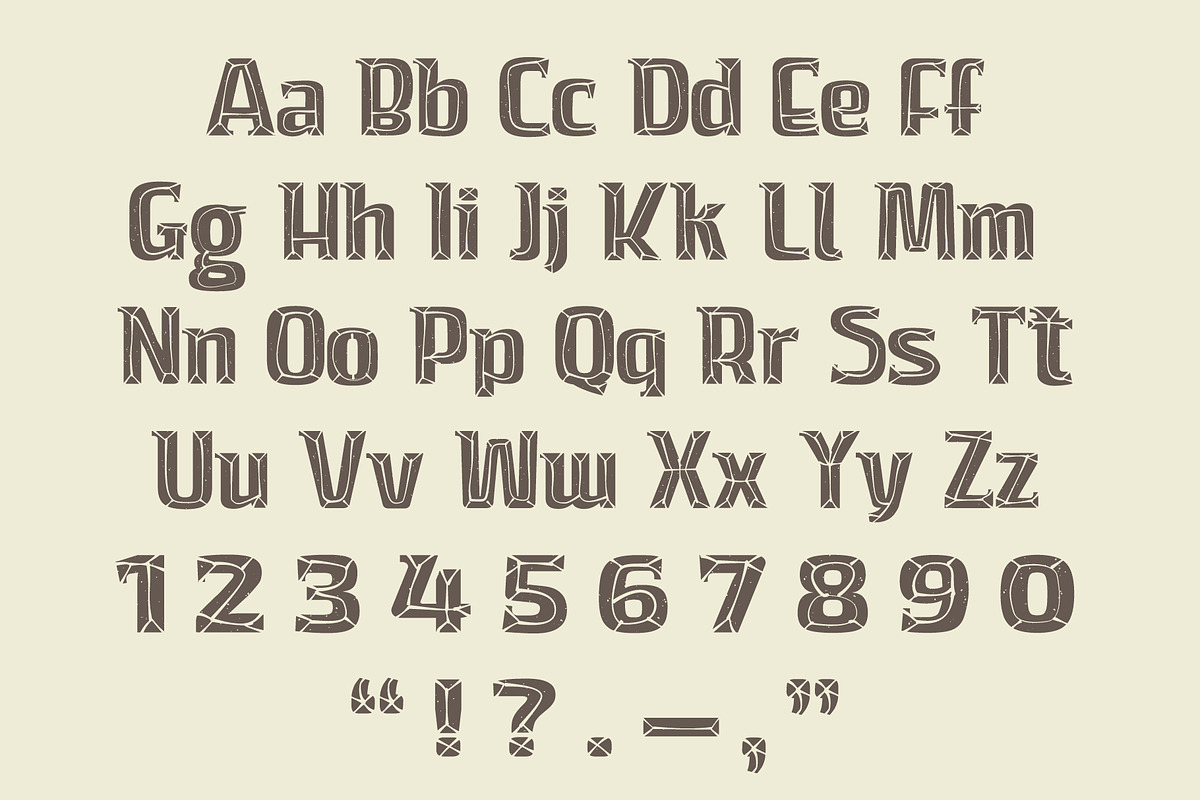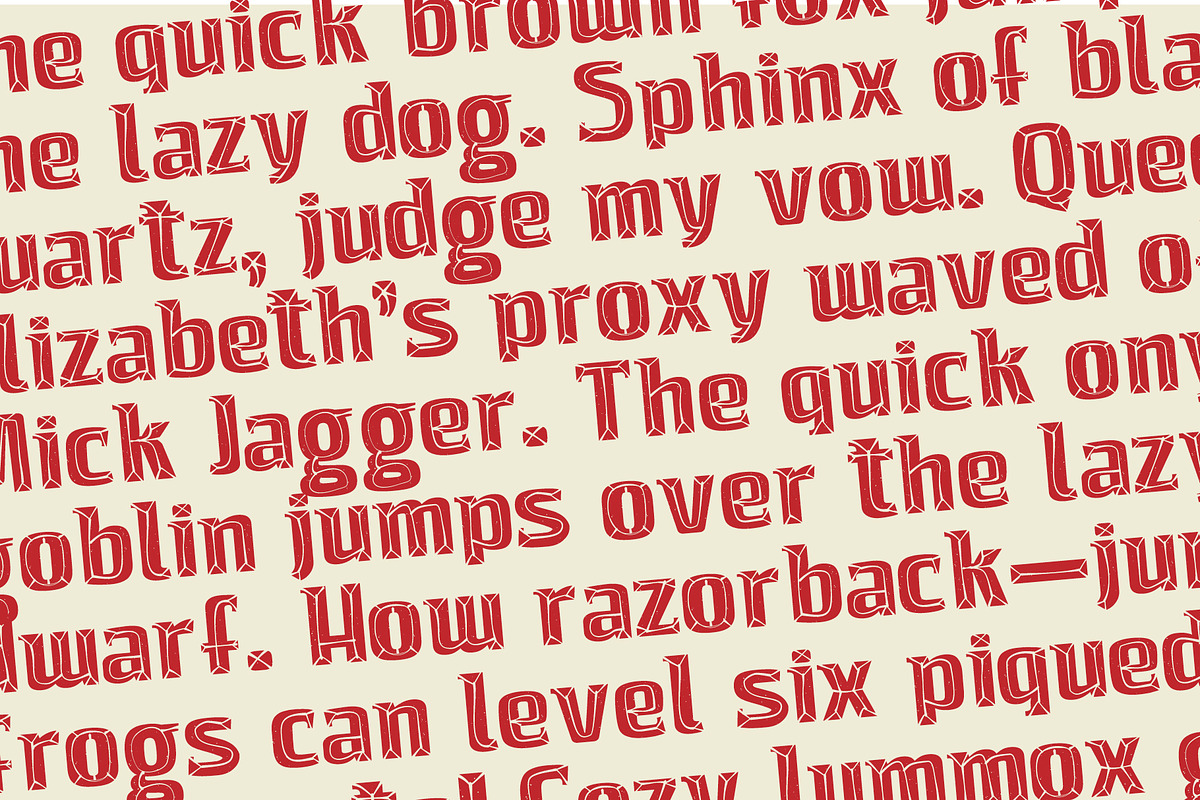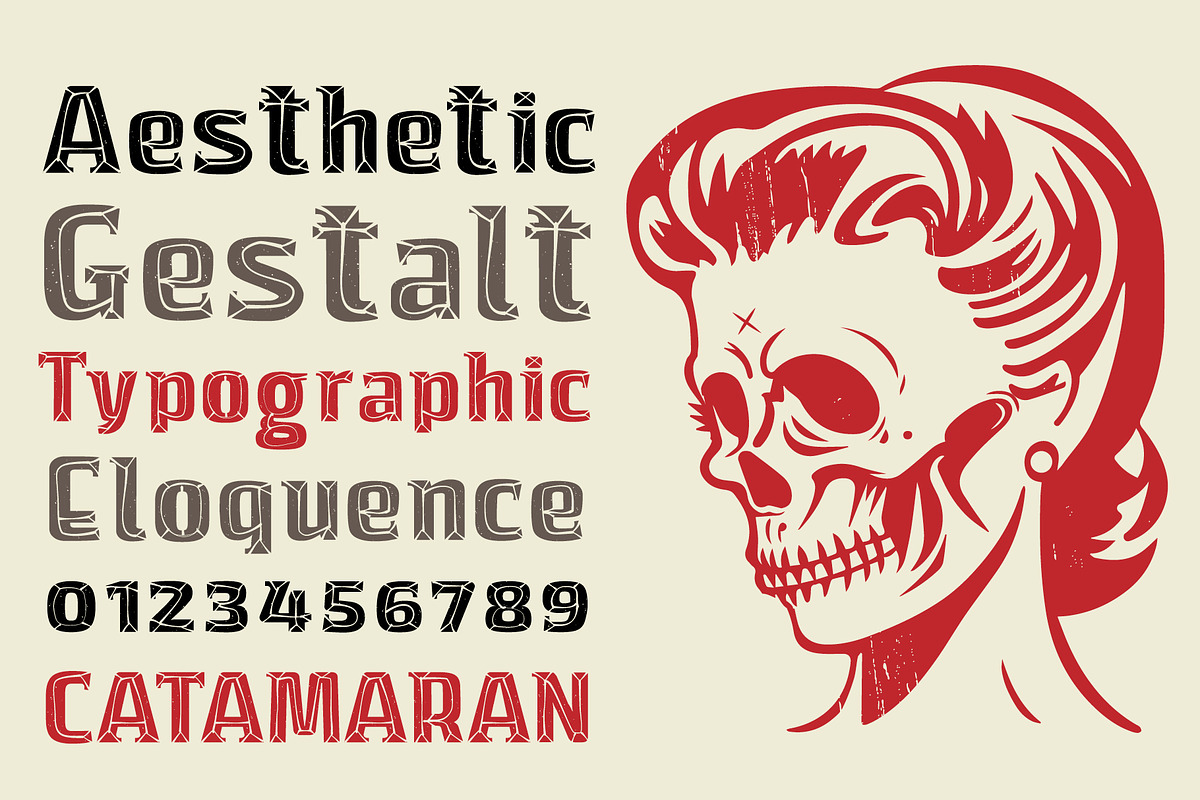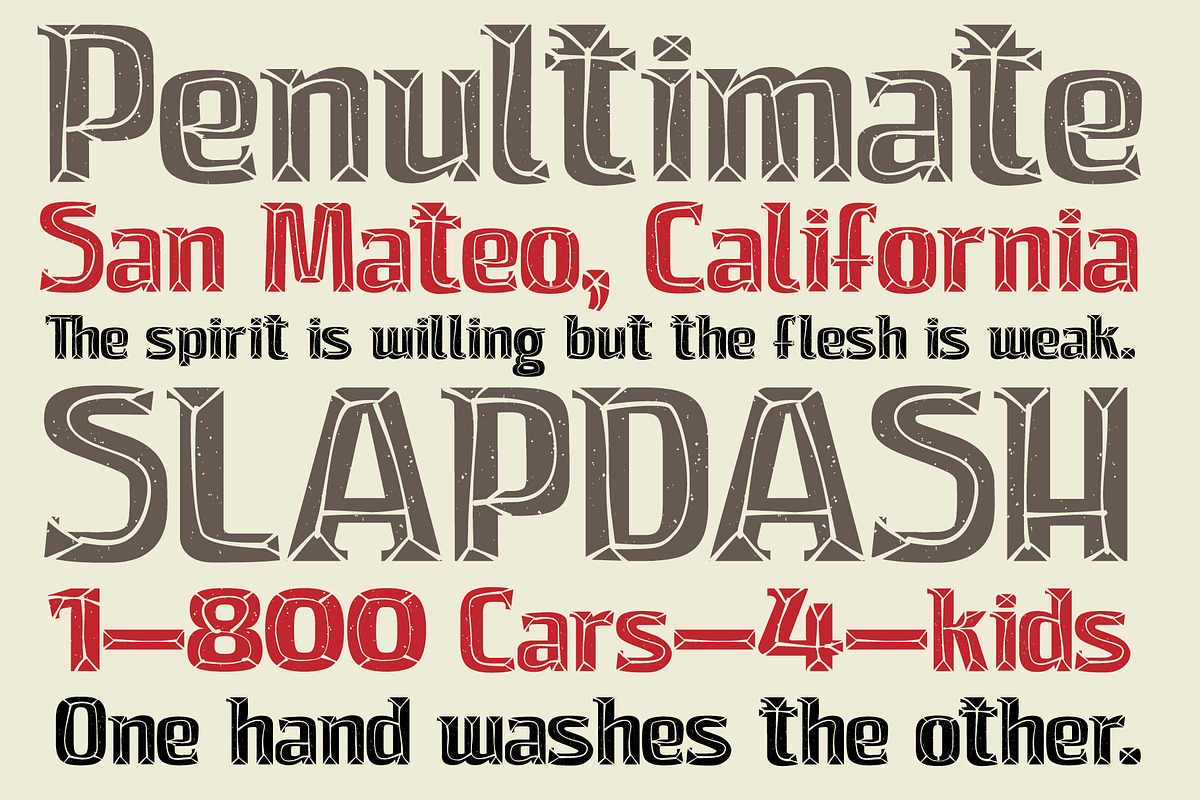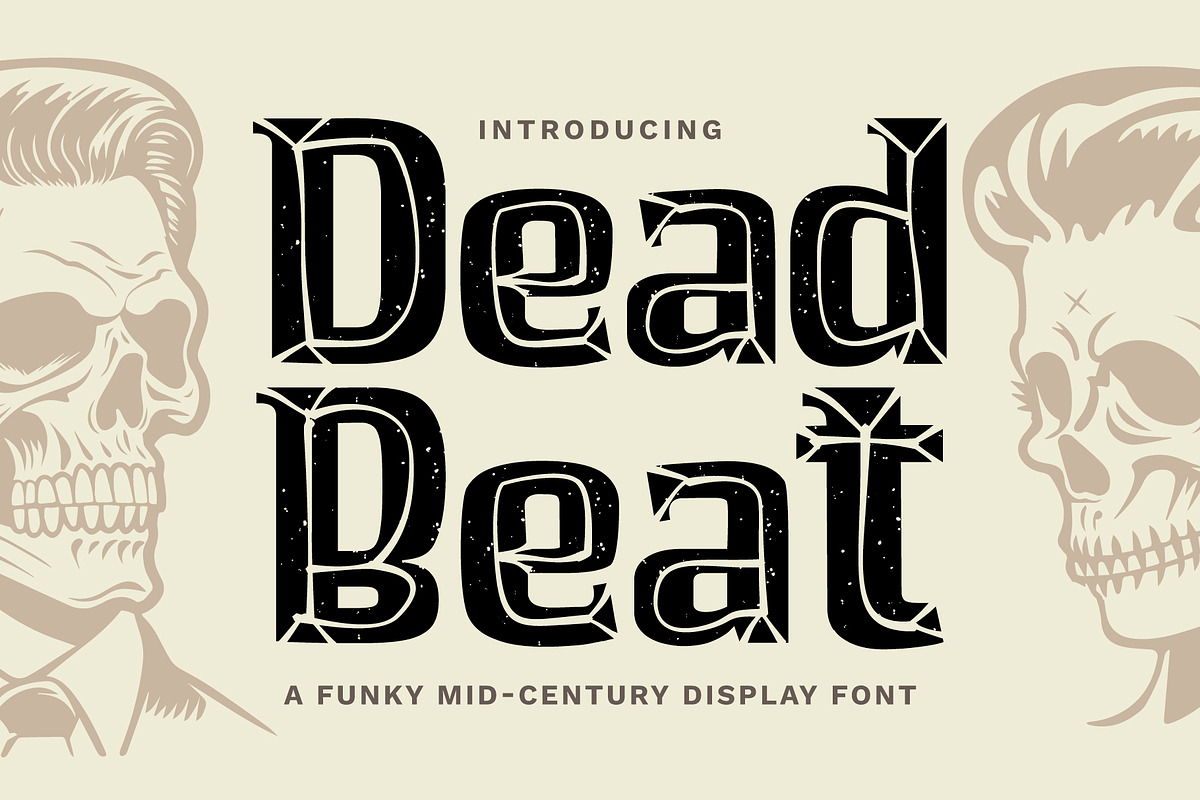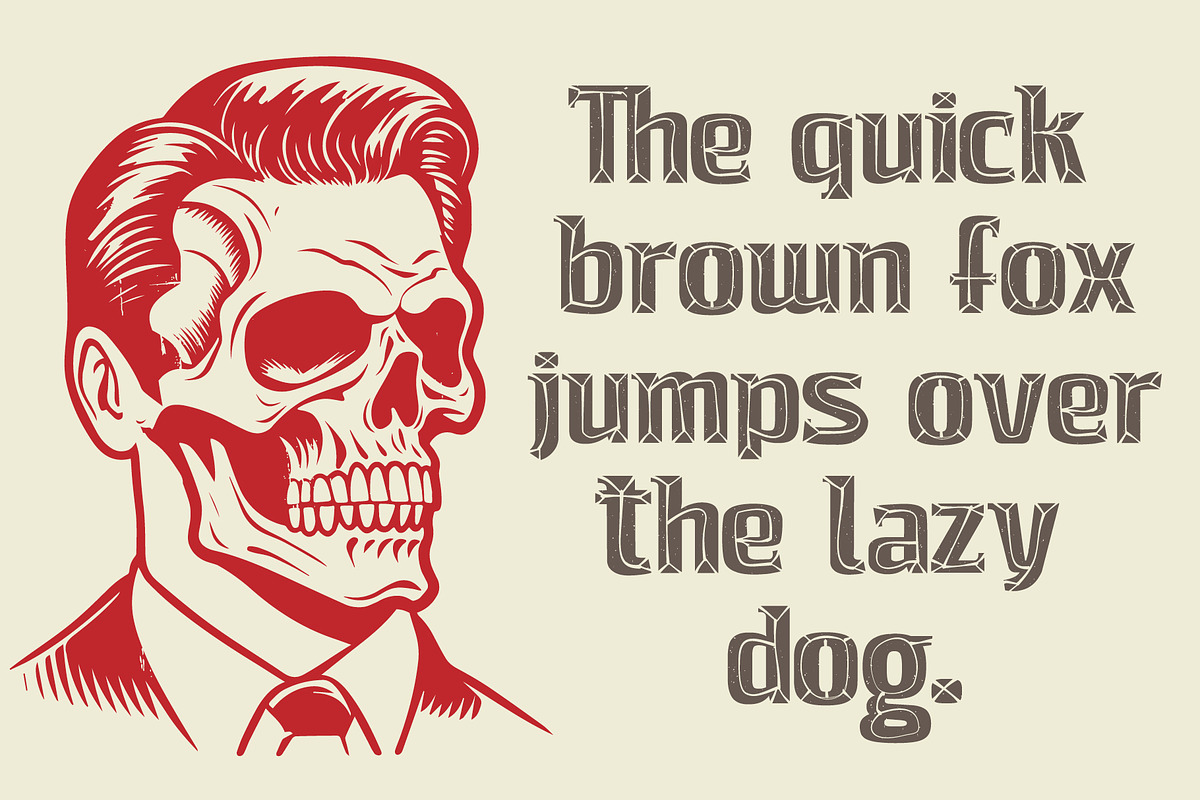
Dead Beat
Dead Beat is a funky mid-century slab serif built for posters, merch, tattoo flash, rockabilly graphics, retro branding, spooky flyers, and anything that needs to look like it came from a haunted roadside diner.
Inspired by vintage monster posters, hot rod decals, old novelty packaging, garage rock flyers, and 1950s weird-o-rama energy, Dead Beat turns every word into a chunky little headline with bite. It is playful, gritty, and a little sinister, without being too horror-specific to use year-round.
The letterforms have bold slab serifs, sharp inline cuts, and a worn printed texture that gives the font a handmade poster-shop feel. Use it big for maximum impact, pair it with simple sans type, or drop it into badges, labels, album covers, and merch graphics when you need instant retro attitude.
Perfect for posters, merch graphics, tattoo-inspired designs, punk flyers, horror comedy graphics, album art, bar menus, hot sauce labels, retro novelty branding, Halloween designs, garage brands, and loud social graphics.
Includes uppercase, lowercase, numbers, and light punctuation.